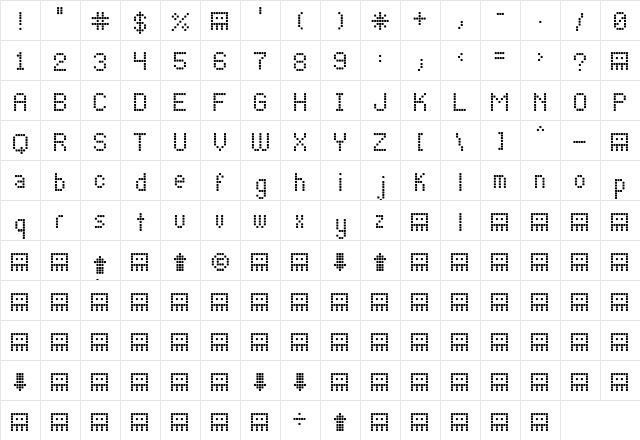
LiteBrite Regular
Design Context for LiteBrite Typeface
LiteBrite takes a measured approach to typography — its balanced proportions and neutral character make it a reliable workhorse for both digital and print work.